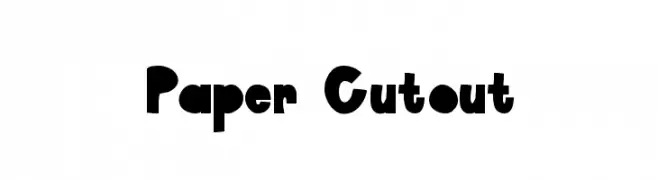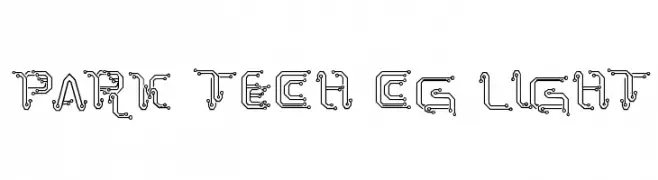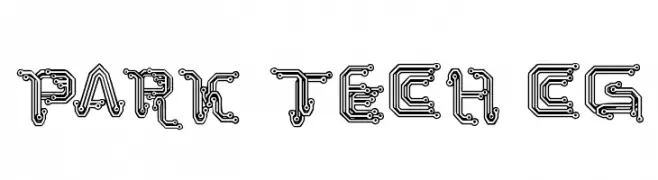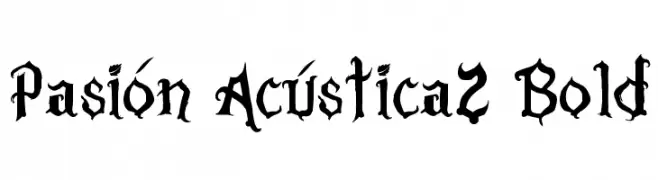
( Fonts by www.smeltery.net )
A playful, bold font with rounded edges and a hand-drawn feel.
( Fonts by www.smeltery.net )
A fluid, elegant script font with an italic, handwritten style.
( Fonts by www.smeltery.net )
A playful, handwritten font with irregular strokes and a casual style.
( Fonts by Steve Cloutier - www.cloutierfontes.ca )
An ornate, vintage script font with elegant flourishes and a handwritten feel.
( Fonts by Galdino Otten - galdinootten.com )
A circuit board-inspired font with intricate line work and a futuristic style.
( Fonts by Galdino Otten - galdinootten.com )
A futuristic, circuit-inspired font with intricate linework and electronic motifs.
( Fonts by Juan Casco - www.juancasco.net )
A bold, gothic-style font with intricate, angular detailing.